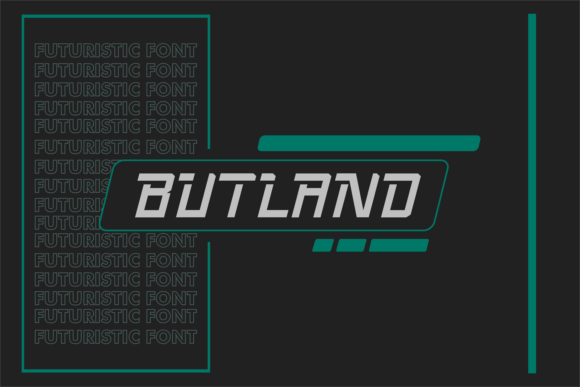
The Quest for the Perfect Font: Discovering Butland
I still remember the design project that led me to Butland Font. I was working on a futuristic web design for a tech startup, and I was struggling to find the right font. The client wanted something bold, modern, and attention-grabbing, but I just couldn’t seem to find the perfect fit. That was until I stumbled upon Butland Font. With its sleek lines and futuristic vibe, it was love at first sight! 💡
Butland Font: The Perfect Blend of Style and Functionality
Butland is a cool, bold, and modern display font that’s ideal for writing web designs, business cards, or pretty much anything else that requires a futuristic touch. Its unique design makes it perfect for designers, crafters, and creative hobbyists looking to add a touch of innovation to their projects.
An Honest Review of Butland Font
What I Love About Butland Font
- ✨ Unique and Modern Design: Butland Font has a sleek and futuristic design that sets it apart from other fonts.
- ✅ Highly Versatile: This font can be used for a wide range of projects, from web designs to business cards.
- 💡 Attention-Grabbing: Butland Font is perfect for headlines and titles that need to make a statement.
While Butland Font is an excellent choice for many projects, there are a few things to keep in mind. 🤔 For example, it may not be the best choice for body text, as its bold design can be overwhelming for longer blocks of text. ⚠️ Additionally, some of the OpenType features may not work seamlessly on all platforms.
The Backstory Behind Butland Font
Butland Font was designed by a team of creatives who wanted to create a font that would capture the essence of modern technology. Inspired by the sleek lines and futuristic designs of sci-fi movies, they set out to create a font that would be both bold and elegant. The result is a font that’s perfect for designers and crafters looking to add a touch of innovation to their projects.
| Font Name | Butland Font |
| Author | Duatiga |
Q: What is Butland Font best used for?
A: Butland Font is ideal for web designs, business cards, and any project that requires a bold and modern touch.
Q: Does Butland Font support OpenType features?
A: Yes, Butland Font supports OpenType features, including glyphs and stylistic alternates.